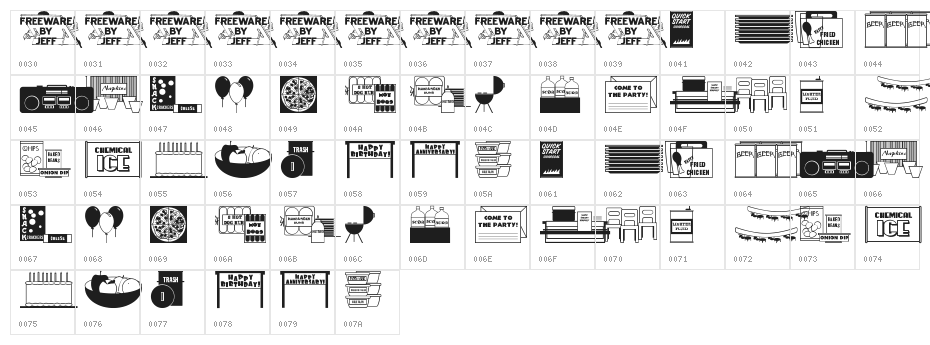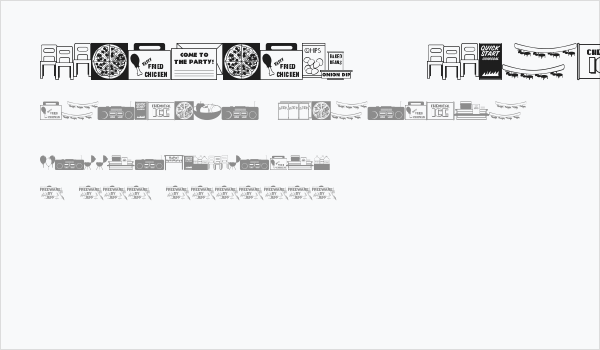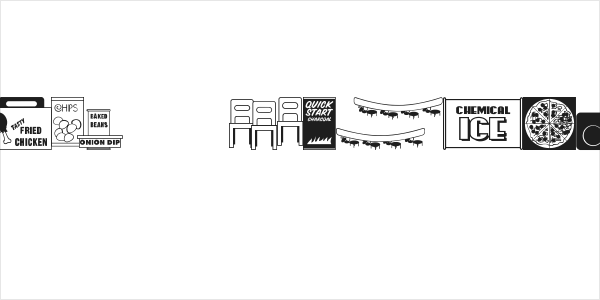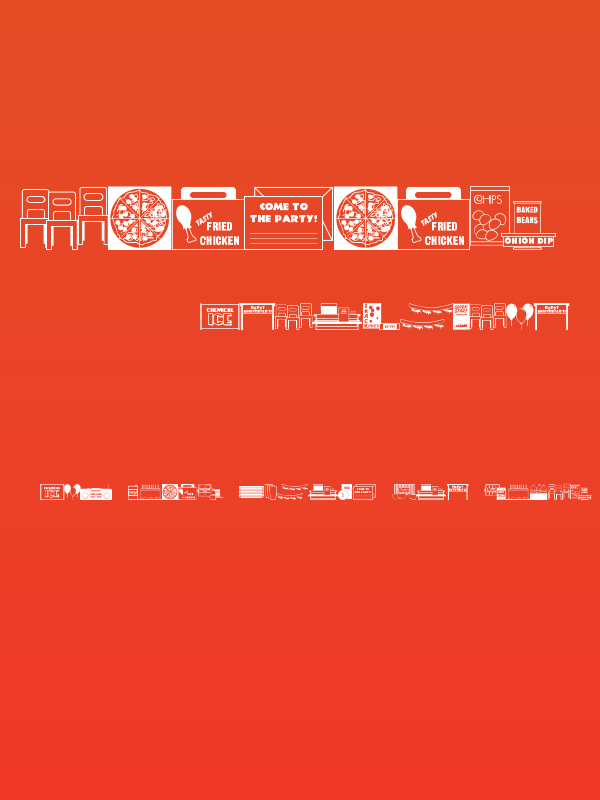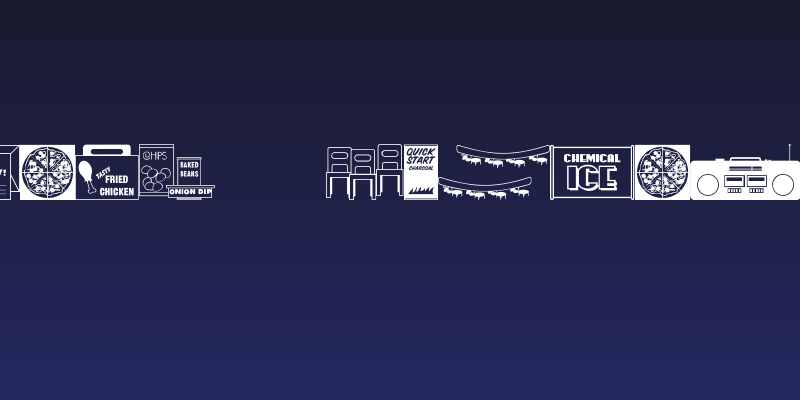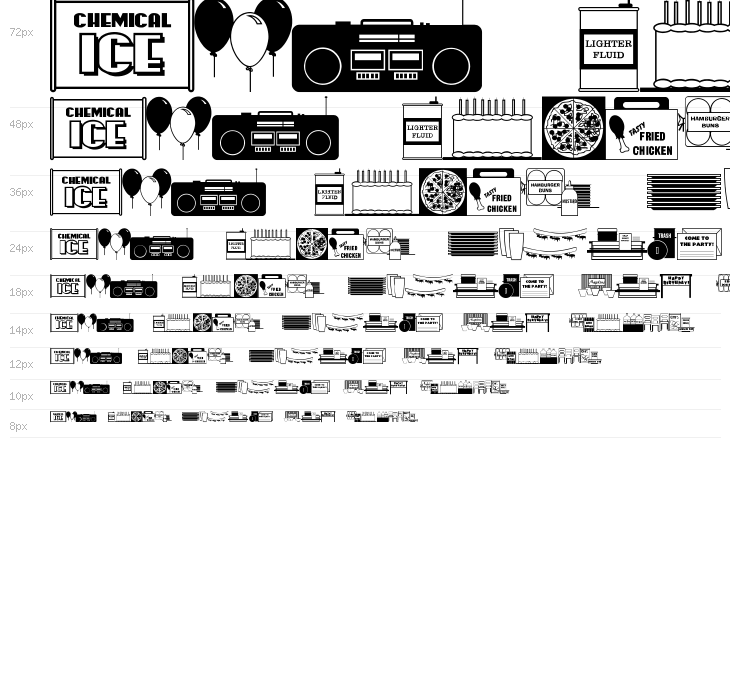
Picnics & Parties JL Font
Picnics & Parties JL Description
This is a decorative font that incorporates playful and thematic elements related to picnics and parties. Each character is represented by an illustration of items commonly associated with such events, like food, drinks, and party decorations. The style is whimsical and fun, making it ideal for informal and festive occasions. The characters are detailed and visually engaging, capturing the essence of a lively gathering.
| Use Case | Logos, Headlines, Event Invitations |
| Proposed Projects | Ideal for event invitations, party flyers, themed posters, and any design project that aims to convey a festive and playful atmosphere. |